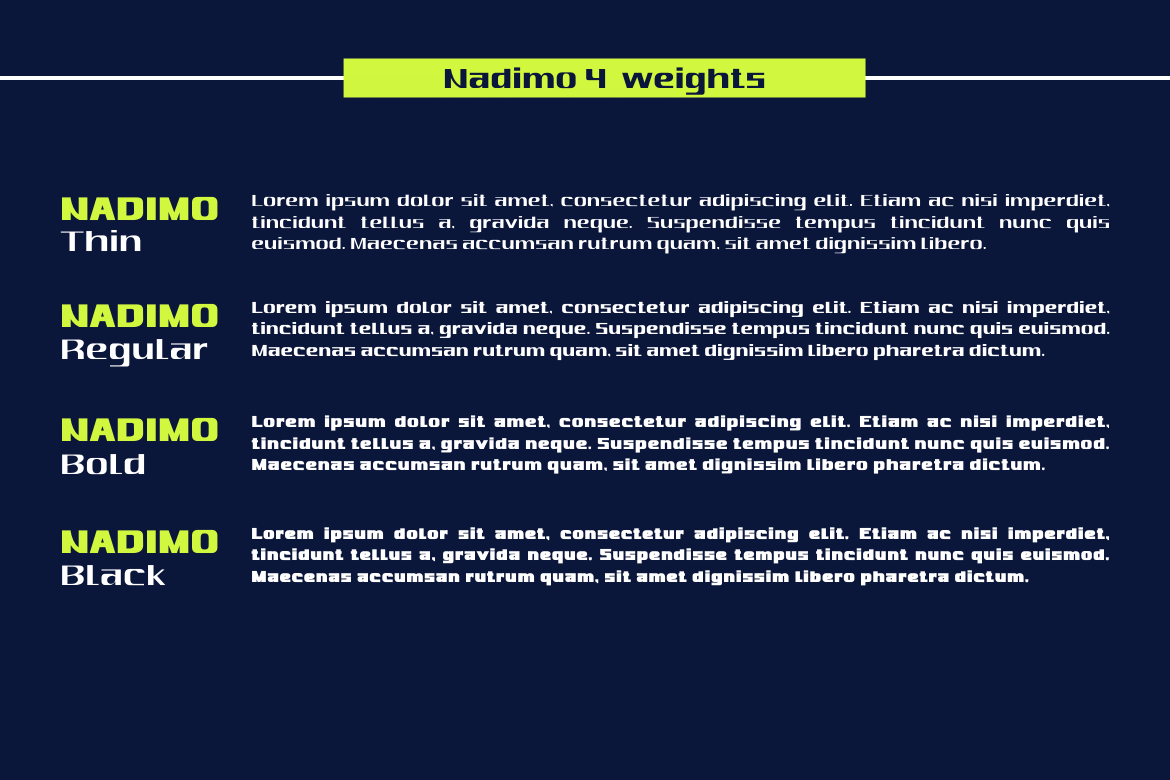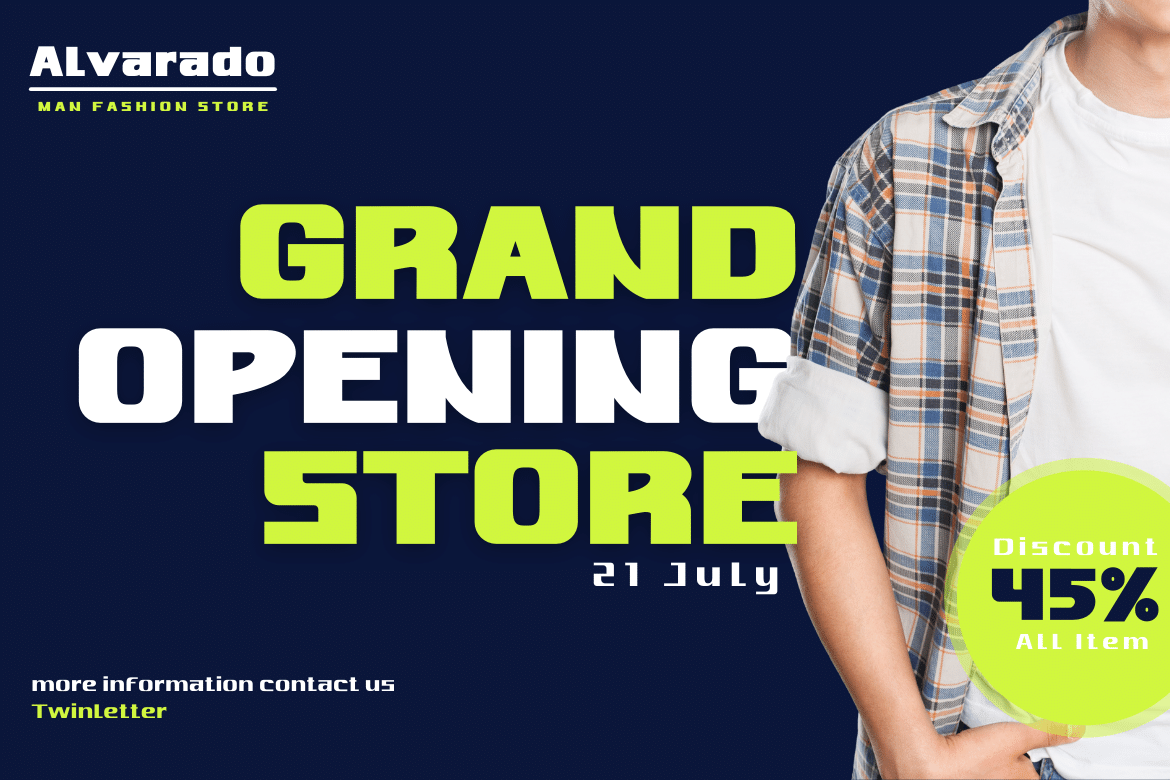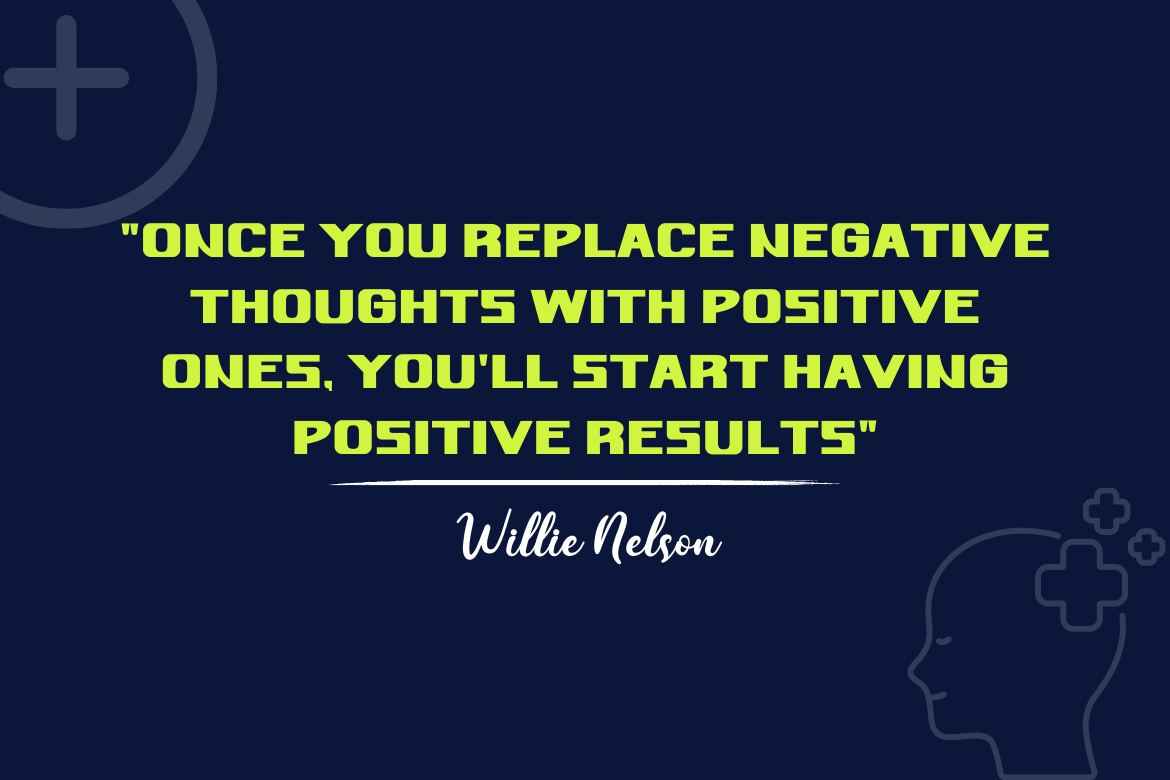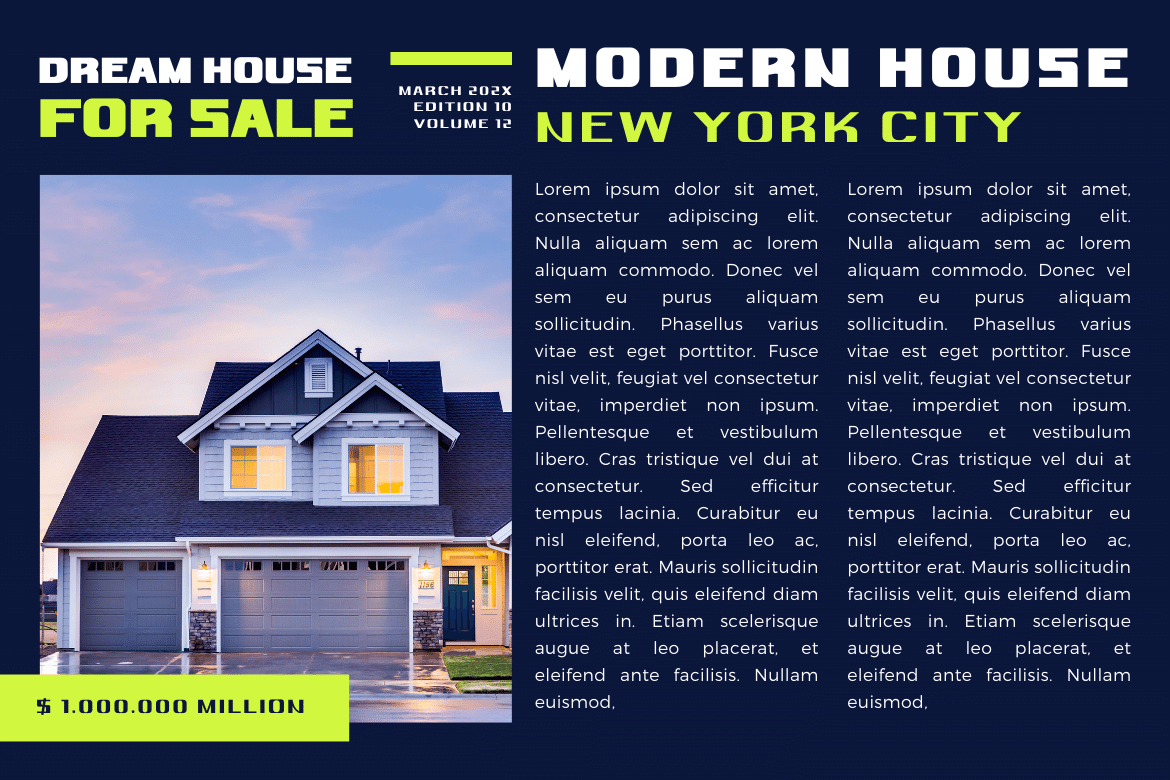
Nadimo Font
Nadimo Sans Serif Font
It’s an elegant, charming, and sensual sans serif font. Designed with subtle curves and flexible shapes to create a beautiful typeface that fits all your projects. Whether you’re looking for a typeface for a logo, t-shirt, poster, or even a large typography installation, Nadimo is here to help.
Of course, your various design projects will be perfect and extraordinary if you use this font because this font comes with a font family, both for titles and subtitles and sentence text, start using our fonts for your extraordinary projects.